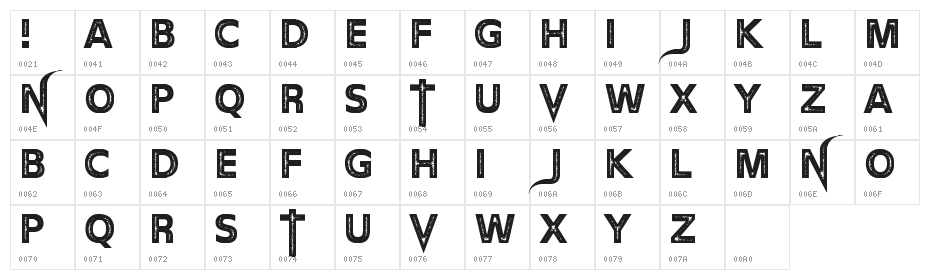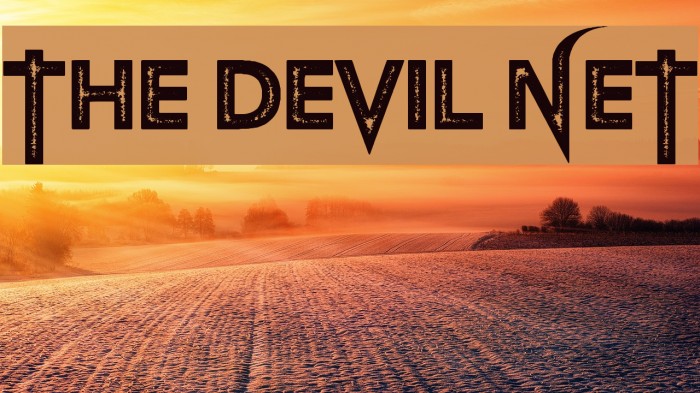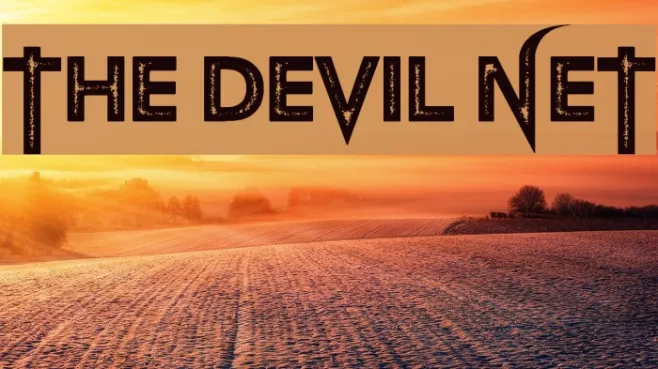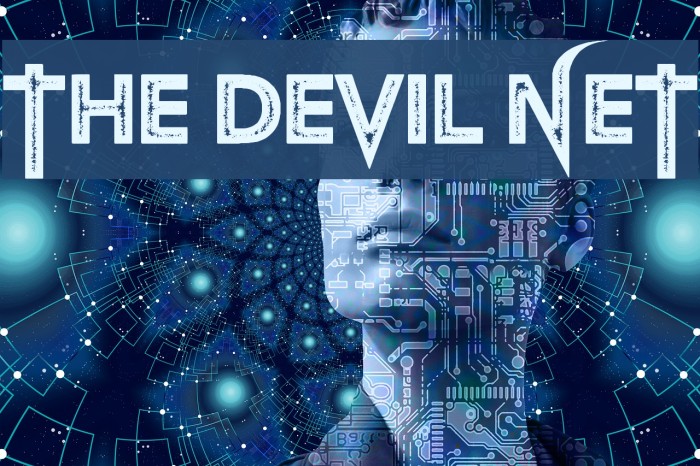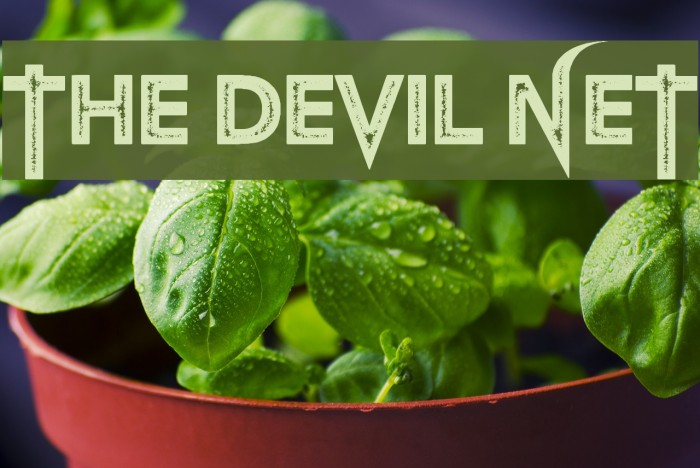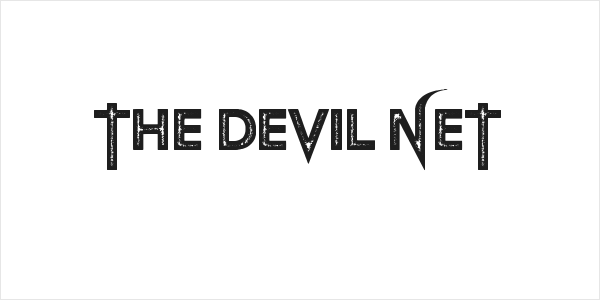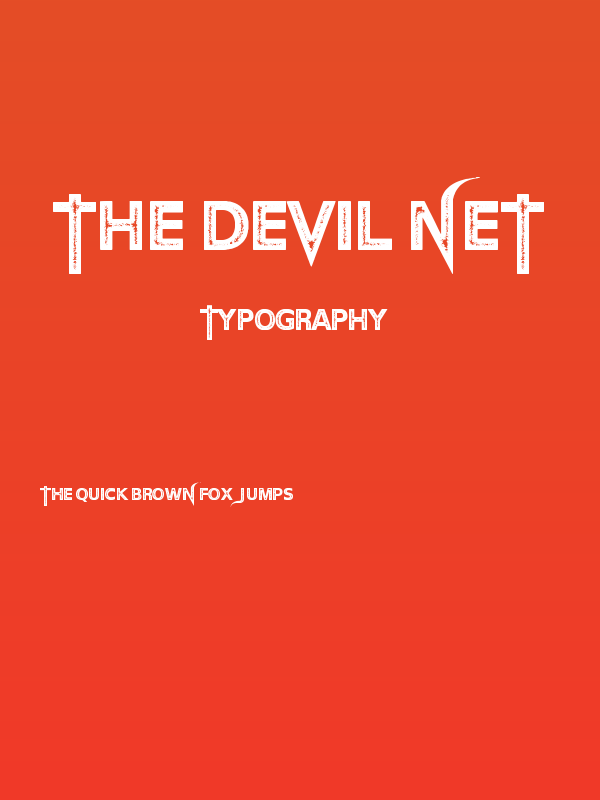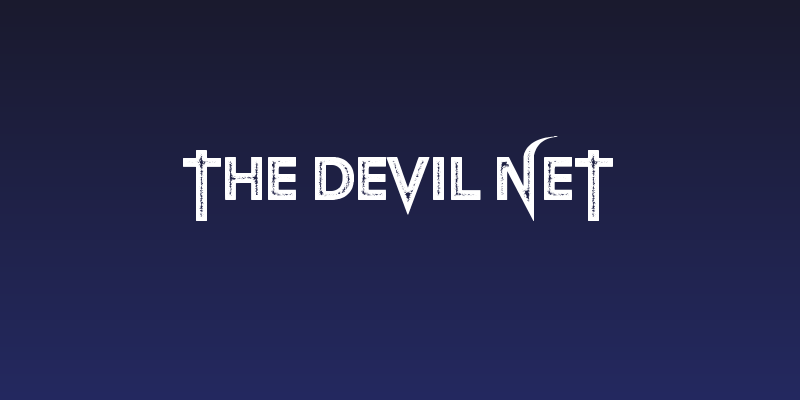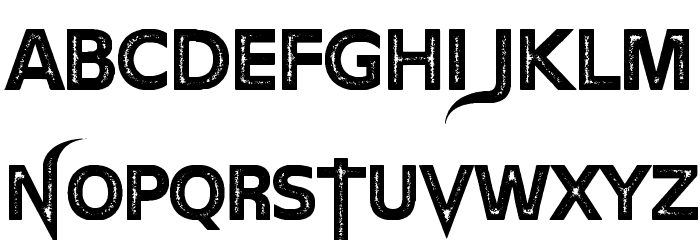
The Devil Net Font
This font features a bold, distressed style with a vintage feel. The uppercase letters are designed with a rough texture, giving them a worn and rugged appearance. The unique design elements, such as the elongated tail on the letter 'J' and the cross-like structure of the letter 'T', add a distinctive character to the typeface. The font includes a full set of uppercase letters, numbers, and a selection of special characters. The overall aesthetic is reminiscent of old-school signage or posters, making it ideal for projects that require a touch of nostalgia or a gritty, urban vibe.
Overall StyleVintage
Proposed ProjectsIdeal for vintage posters, album covers, branding for retro-themed products, or any design needing a gritty, nostalgic touch.